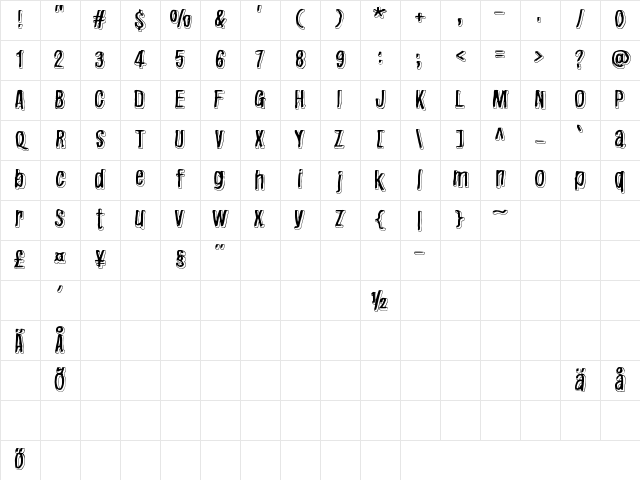
Redhair Regular
Design Context for Redhair
Redhair is a composed and adaptable typeface that performs quietly and consistently across a wide range of design contexts.